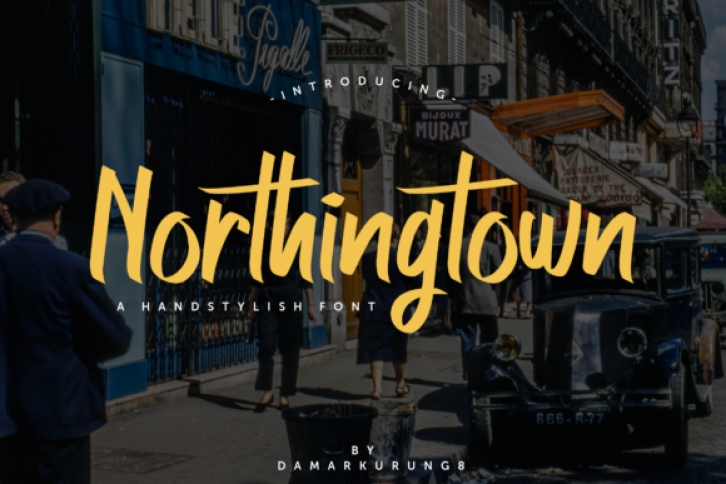
The Northingtown is a stunning handwritten font. It has smooth curves which makes it perfect for crafters!
Its striking style can be used for logos, magazines, covers, quotes, invitations, and much more!